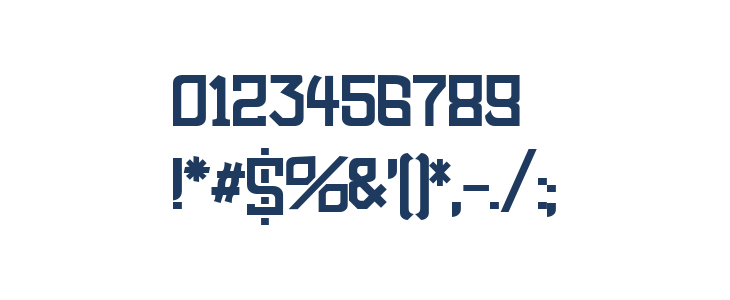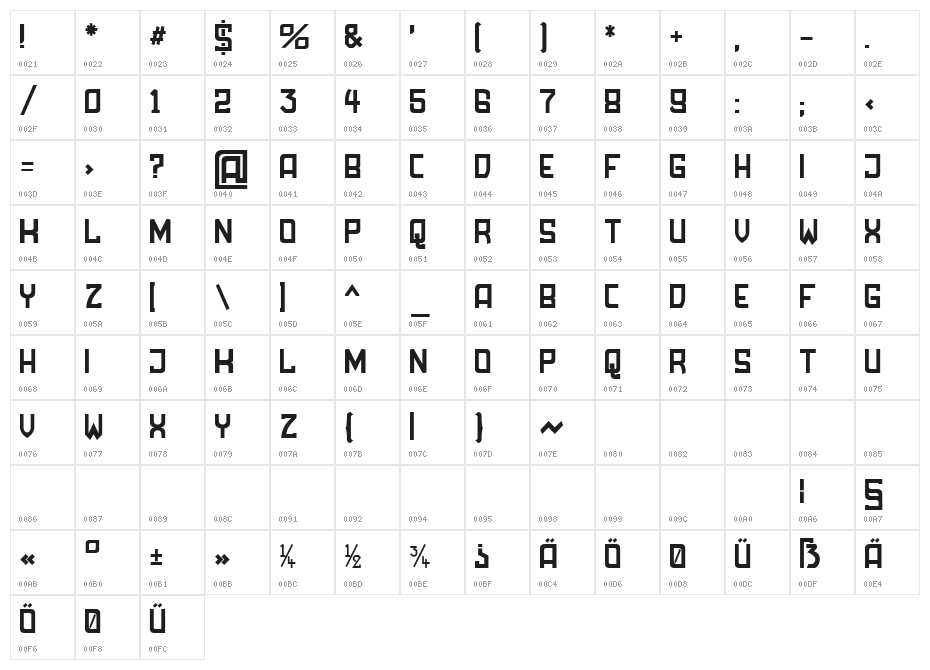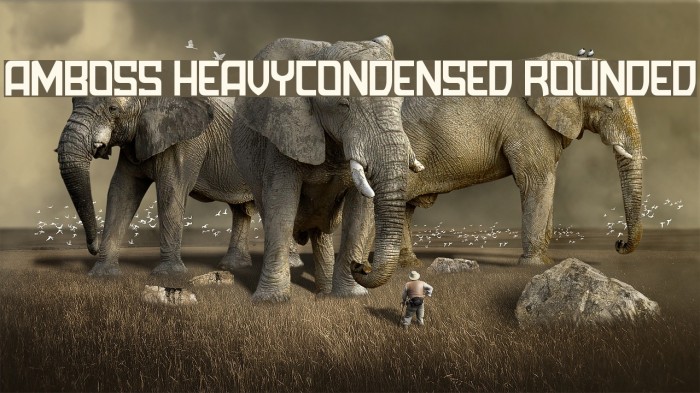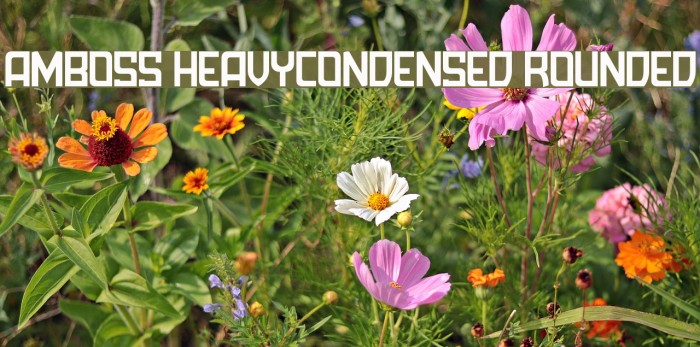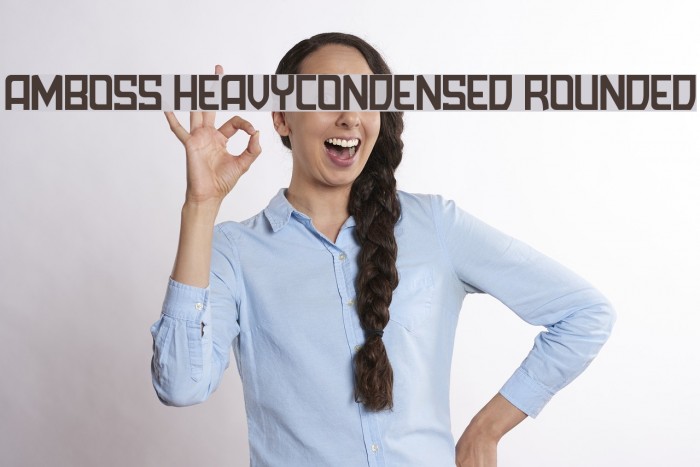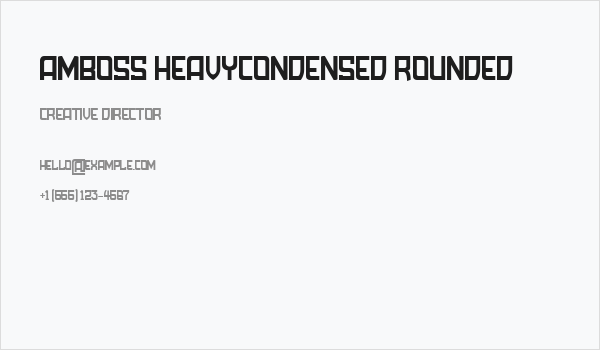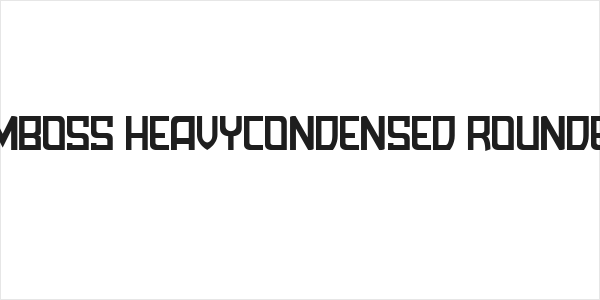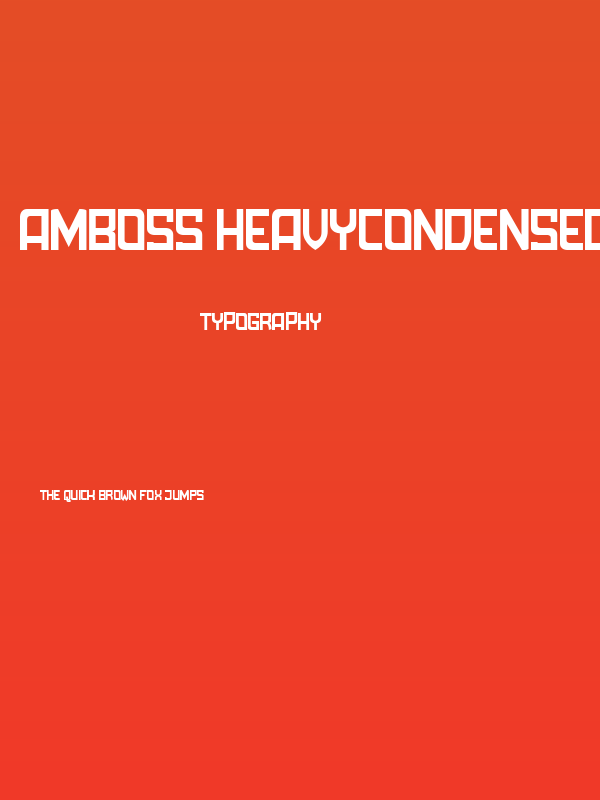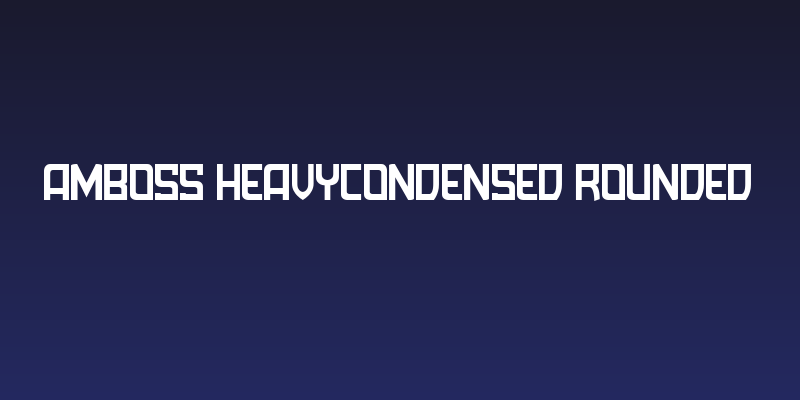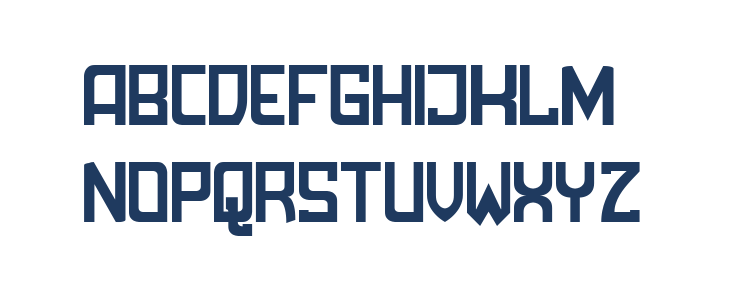
Amboss HeavyCondensed Rounded Font
Amboss HeavyCondensed Rounded Description
This font features a bold and heavy design with condensed letterforms, giving it a strong and impactful presence. The rounded edges soften the overall appearance, adding a touch of friendliness to its otherwise robust structure. The geometric shapes and uniform stroke widths contribute to a modern and industrial feel, making it suitable for attention-grabbing headlines and signage. The uppercase and lowercase letters maintain consistent proportions, ensuring readability even at smaller sizes. The numerals and special characters are designed to match the boldness of the alphabet, providing a cohesive look across all elements.